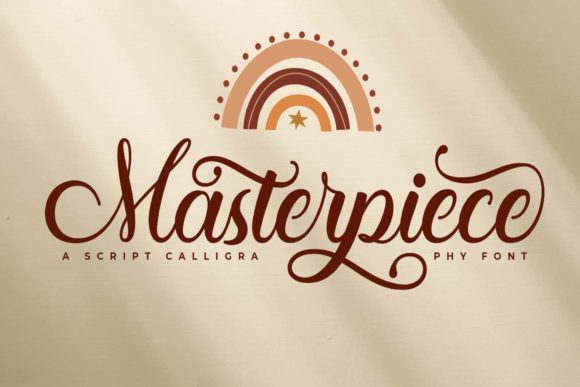
Prepare to be captivated by Masterpiece Font, the breathtaking script font that will transform your designs into masterpieces. Its graceful curves and elegant strokes exude sophistication, adding an irresistible allure to any project.
Crafted with meticulous care by Doehantz Studio, this font embodies the essence of handwritten finesse. Its delicate balance and subtle nuances lend an air of timeless charm, making it the perfect choice for modern resumes and sophisticated designs.
Masterpiece Font is a treasure trove of creativity, featuring a symphony of glyphs and swashes that unlock endless possibilities. Its PUA encoding makes it a breeze to access these embellishments, empowering you to add a touch of whimsy or understated elegance to your creations.
Indulge in the beauty of Masterpiece Font and watch your designs soar to new heights of sophistication and allure. Its enchanting script will captivate your audience, leaving a lasting impression that will resonate long after the page is turned.